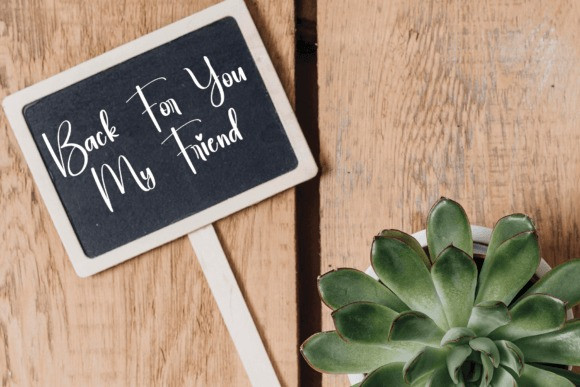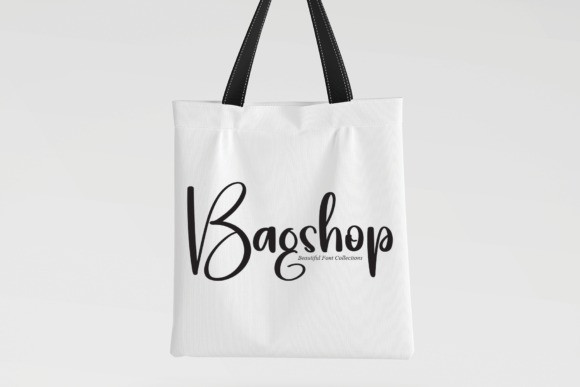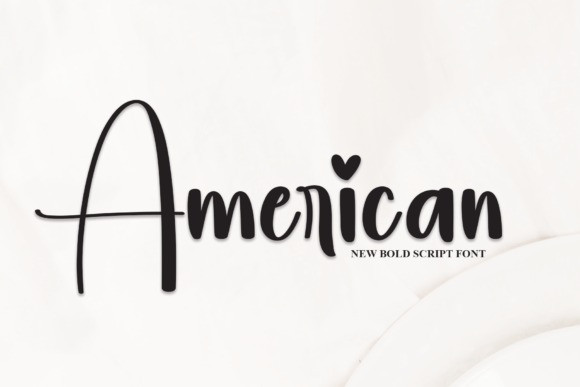
American Script Typeface
American Script Font, is a lovely and sweet handwritten script font. This gentle font will look gorgeous on a variety of design ideas. It will add a joyful and romantic touch to each of your projects!